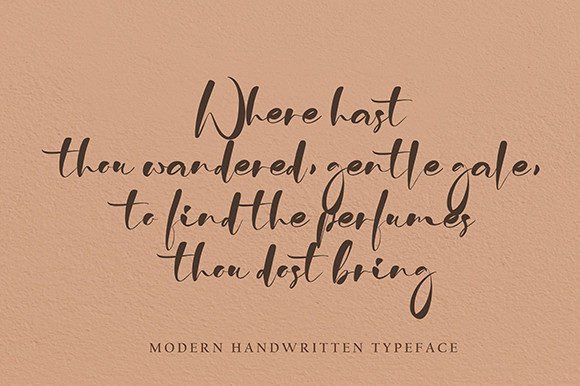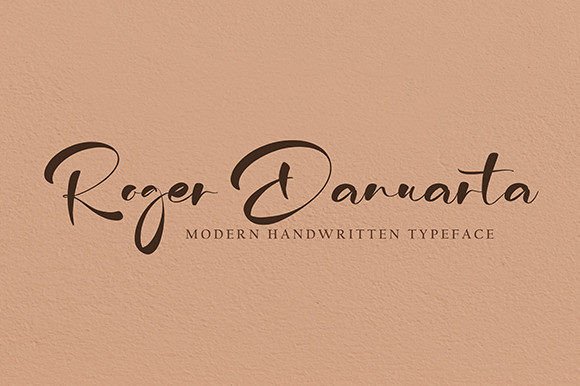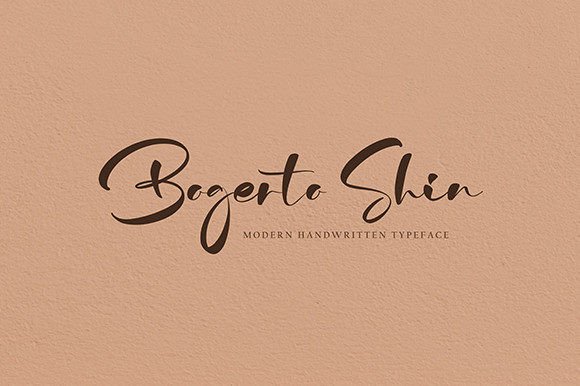
Introduction to Furly Gophe Font
As designers, we’ve all been there – staring at a blank canvas, searching for the perfect font to bring our creative vision to life. The moment when everything clicks, and the right typography elevates our design from ordinary to extraordinary. For those who crave that ‘wow’ factor, we’re excited to introduce the Furly Gophe Font – a masterpiece of elegance and sophistication that’s sure to elevate any project.
Whether you’re crafting wedding invitations, branding materials, or any other creative project, the Furly Gophe Font is a valuable design resource that adds a touch of high-quality style. Its intricate loops, curls, and swashes make it perfect for designers who want to make a lasting impression. And with its transparent background, you can easily integrate it into your design without any hassle.
Key Features of Furly Gophe Font
- High-quality, vector-based design for a transparent background, ideal for creative projects
- Unique, hand-drawn style that adds a touch of personality to any design, making it a great choice for creative projects
Honest Review: Furly Gophe Font
I recently had the chance to work with the Furly Gophe Font, and I must say it’s a unique addition to any design project. As a designer, I’m always on the lookout for high-quality fonts that can help bring my creative vision to life.
What works well with Furly Gophe Font is its versatility. It can be used in a variety of design contexts, from headings to body text, and it’s particularly well-suited for creative projects that require a touch of whimsy. The font’s playful feel is sure to add some personality to your designs, and its transparent background makes it easy to work with.
Here are some of the key features that stood out to me:
- Transparent background for easy use
However, I did encounter some limitations while working with Furly Gophe Font. The font can be a bit difficult to read at smaller sizes, and it may not be suitable for large blocks of text.
Overall, I’d recommend the Furly Gophe Font for designers who want to add a unique touch to their creative projects. While it may have some limitations, its high-quality design and versatility make it a valuable addition to any design resource.
Getting the Most Out of Furly Gophe Font
For optimal results, use the Furly Gophe Font in conjunction with other design elements, such as images and graphics. Experiment with different font sizes, colors, and styles to achieve a unique look.
The Furly Gophe Font is suitable for various creative projects, including logos, brochures, posters, and social media graphics. Its high-quality design makes it an excellent choice for design professionals and hobbyists alike.